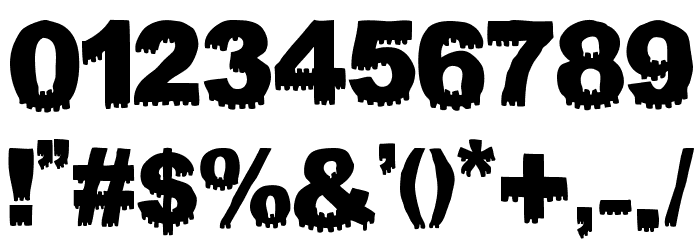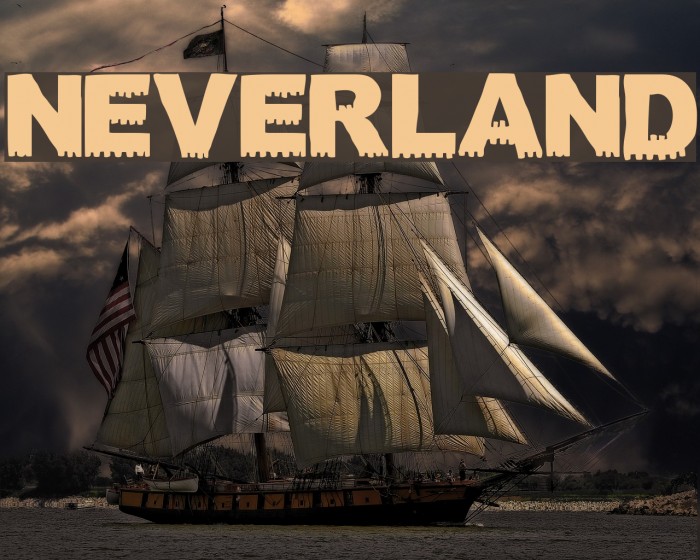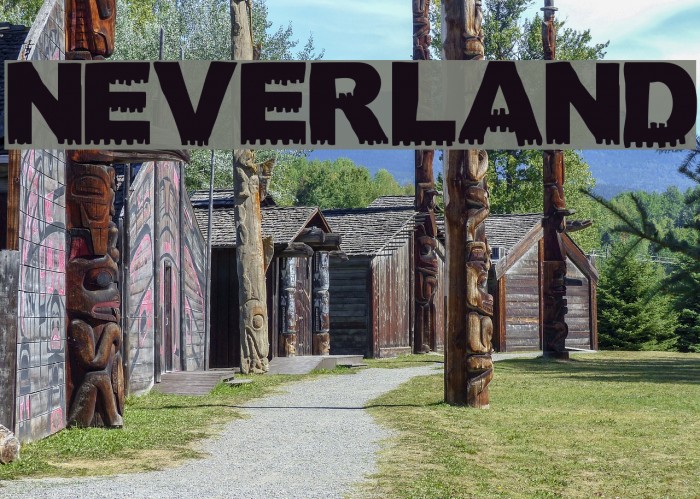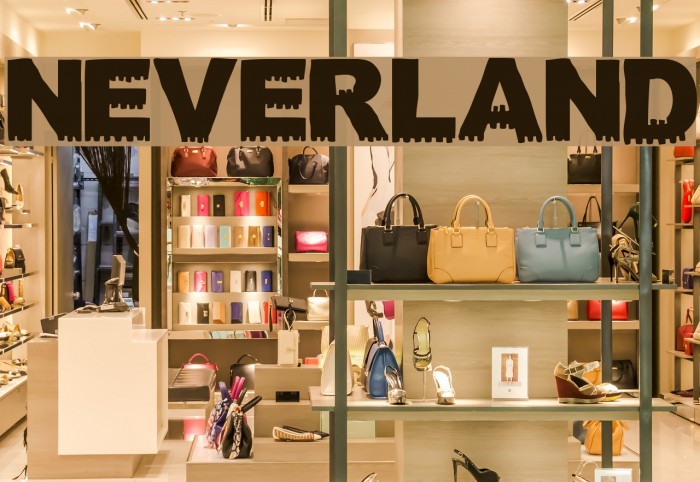
NEVERLAND Font
This font features a bold and playful design with a unique dripping effect at the bottom of each character, reminiscent of melting or liquid forms. The uppercase letters are prominent and eye-catching, making them ideal for attention-grabbing headlines. The numbers and special characters maintain the same dripping style, ensuring consistency across all glyphs. The overall appearance is both fun and slightly edgy, suitable for creative projects that require a distinctive and memorable typeface.
A bold, playful font with a unique dripping effect.
- Proposed Projects: Ideal for Halloween-themed designs, children's book covers, party invitations, and creative branding projects.